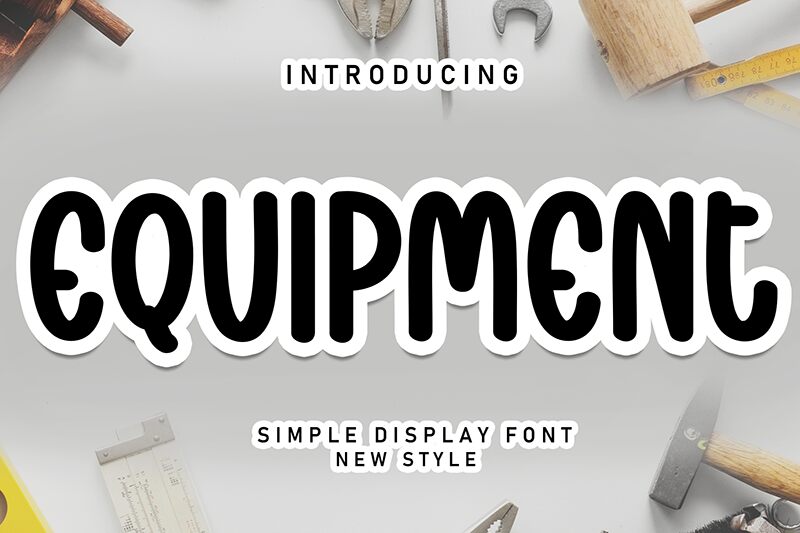
Equipment
Equipment font by Andi Moz is a condensed handwritten font that blends retro-inspired elements with a casual, organic feel. Featuring rounded forms and a slightly condensed structure, this unique typeface brings together style and legibility for eye-catching headlines.